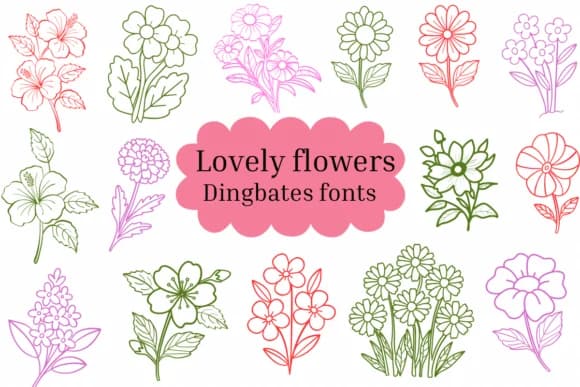
Lovely Flowers by Natchuta is a sketch-style dingbats font brimming with hand-drawn botanical elements. The charming, organic linework makes it ideal for spring stationery sets, hand-painted wedding invitations, botanical illustration projects, and floral-themed social media graphics. This font's delicate nature motifs and loose sketchy quality bring an artisanal feel that reads as genuinely handcrafted, giving your designs that "drawn this morning" authenticity that's nearly impossible to replicate digitally.
Loose, sketchy line quality sets this apart from more formal dingbat libraries. It's the natural choice for wedding suite designs, botanical-themed branding, rustic event stationery, or any project where hand-drawn charm makes the difference. Grab this font on Creative Fabrica and start layering sketched florals into your next design.
Lovely Flowers Font is a versatile dingbats font that works for both headings and body text. Pair it with a contrasting sans-serif or serif font to add visual interest and a clear distinction between titles and body copy.